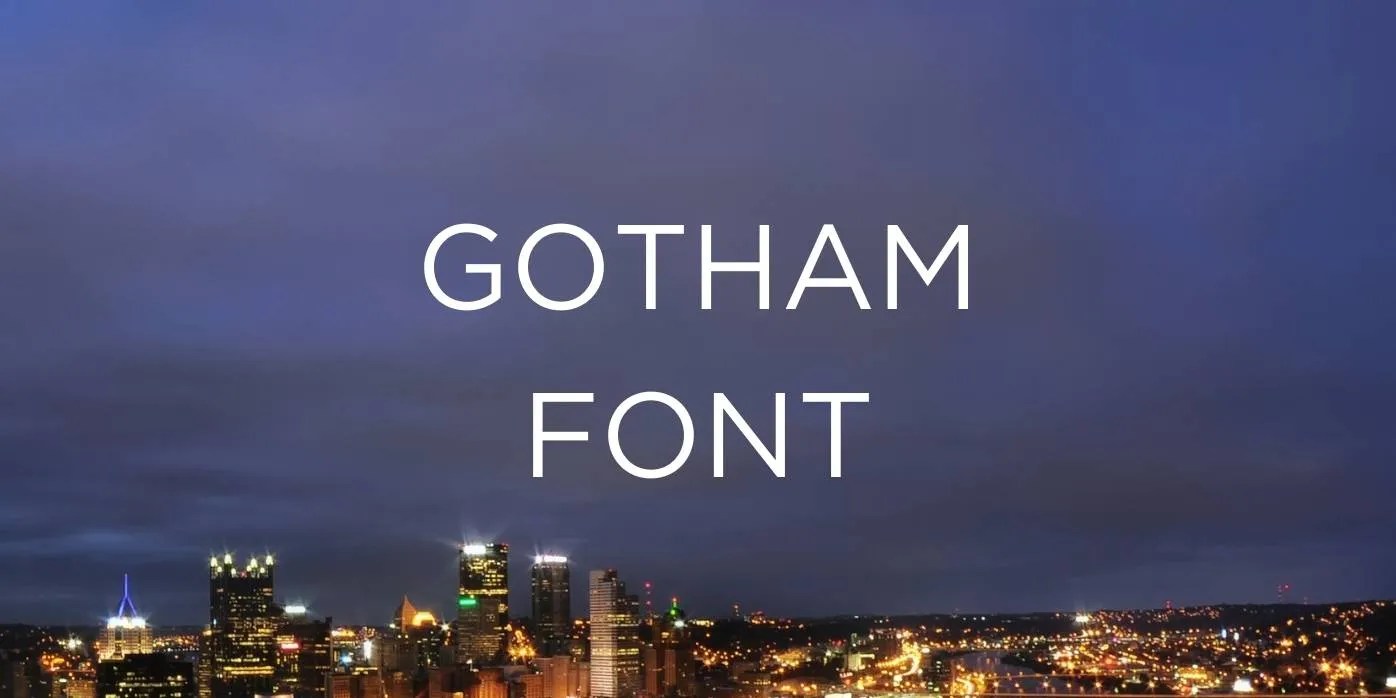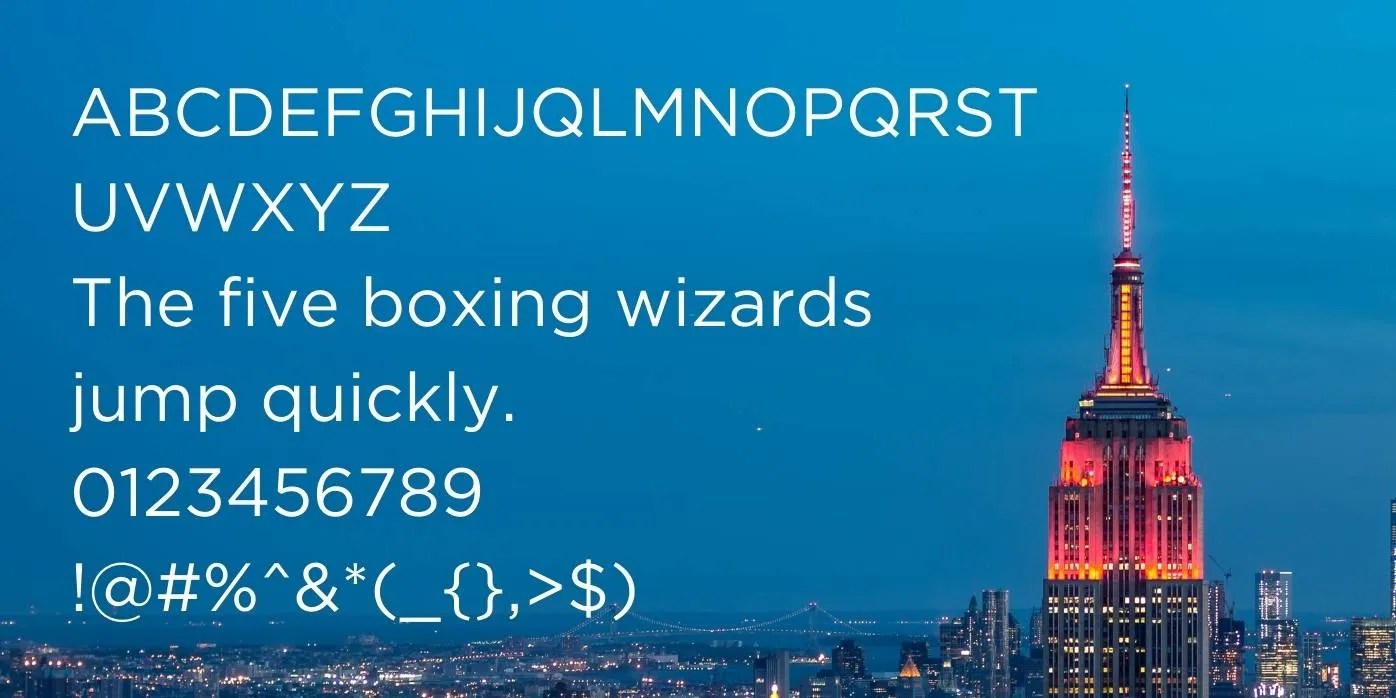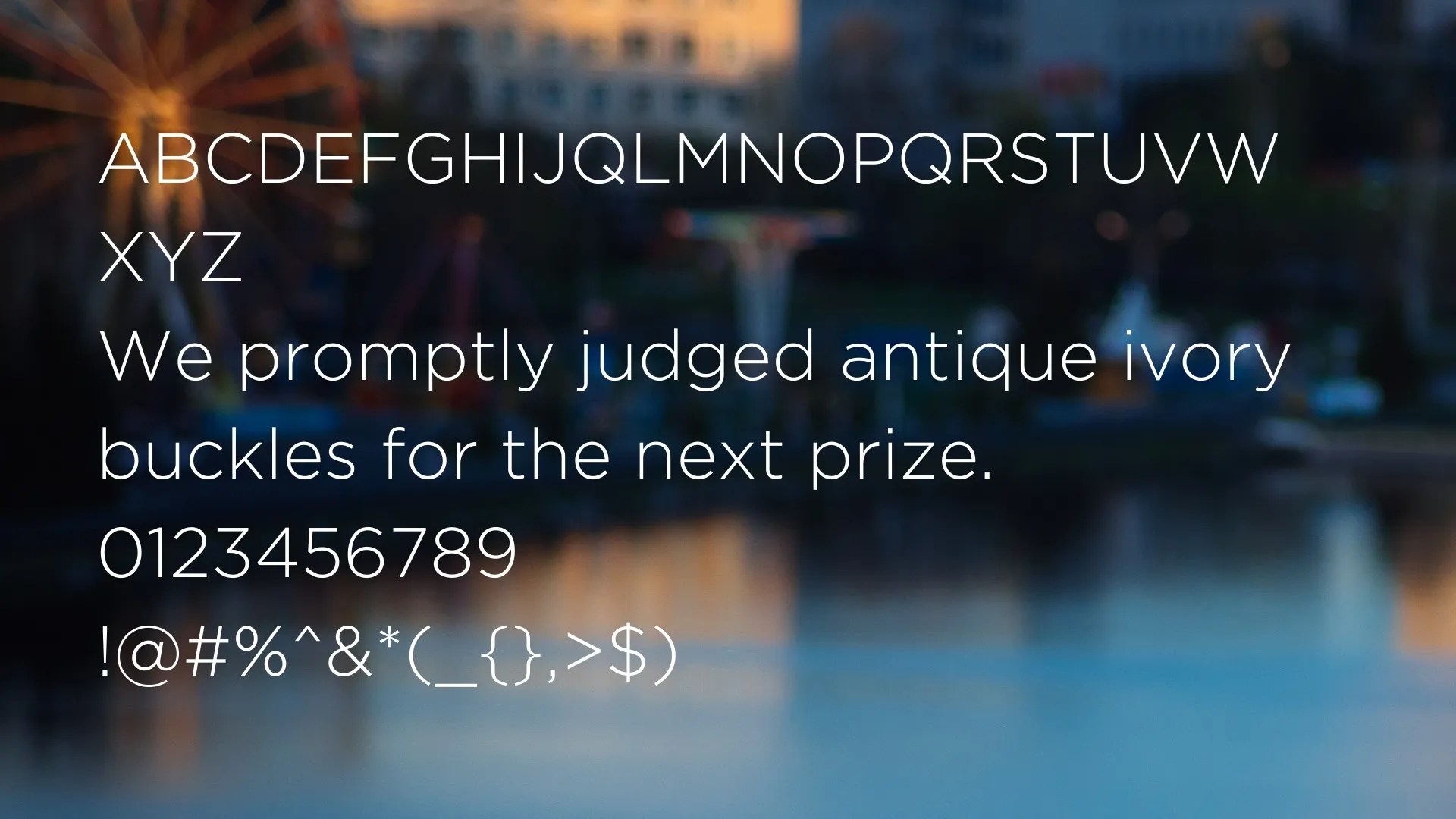
Gotham Font Free Download Gotham Font Free Commercial Use Download gotham family bundles from hoefler&co, or settle for the free versions on free fonts family. Click to find the best 33 free fonts in the gotham style. Since it is a commercial font, using it calls for a license. Hoefler & co, offers it in a number of online, desktop and mobile format options. Every font is free to. Gotham Font Free Commercial Use.
Gotham font Gotham Font Free Commercial Use Download gotham family bundles from hoefler&co, or settle for the free versions on free fonts family. Every font is free to download! (the foundry that created and owns the copyright. Click to find the best 33 free fonts in the gotham style. Here are the sources and. If you download the font for free, you do not have a commercial. Gotham Font Free Commercial Use.
Gotham Font Download (Free License Font) 2023 Gotham Font Free Commercial Use For commercial use, please order a license here: If you download the font for free, you do not have a commercial license for it and can only use it for personal use. Download gotham family bundles from hoefler&co, or settle for the free versions on free fonts family. Click to find the best 33 free fonts in the gotham style.. Gotham Font Free Commercial Use.